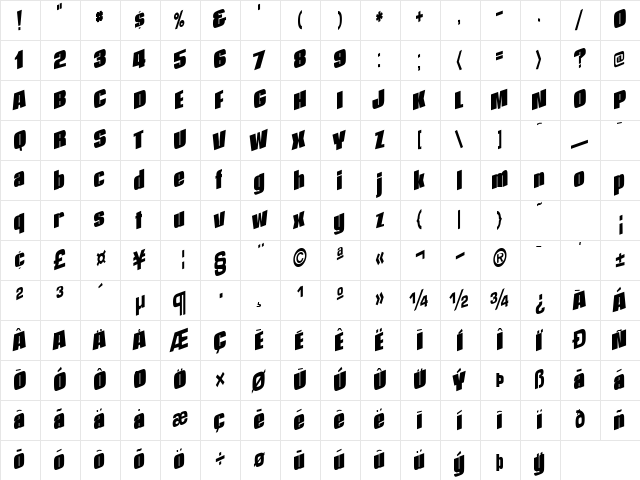
After Regular
Design Context for After Typeface
After is a composed and adaptable typeface that performs quietly and consistently across a wide range of design contexts.
Pro Tip: Use After in both headline and body roles to test its range before committing to a single application.